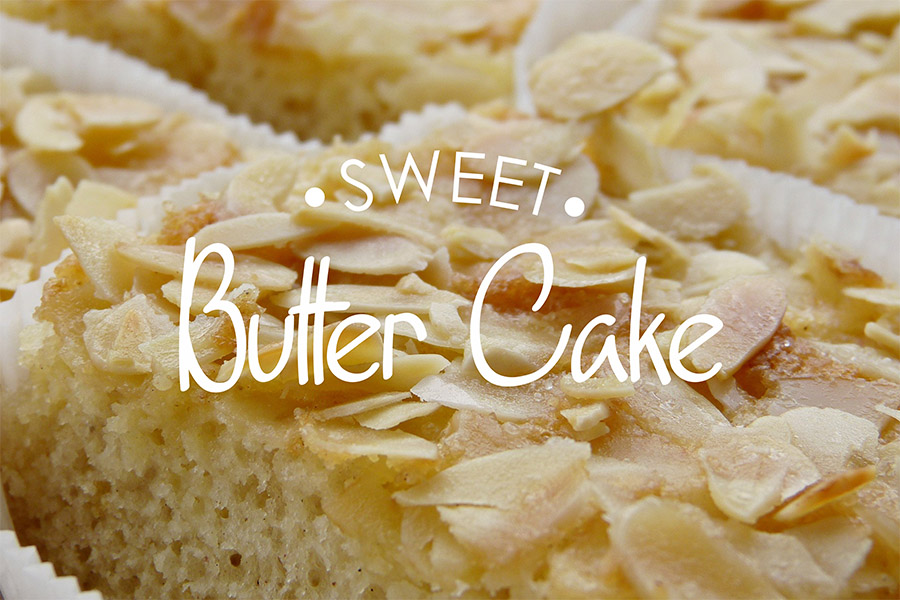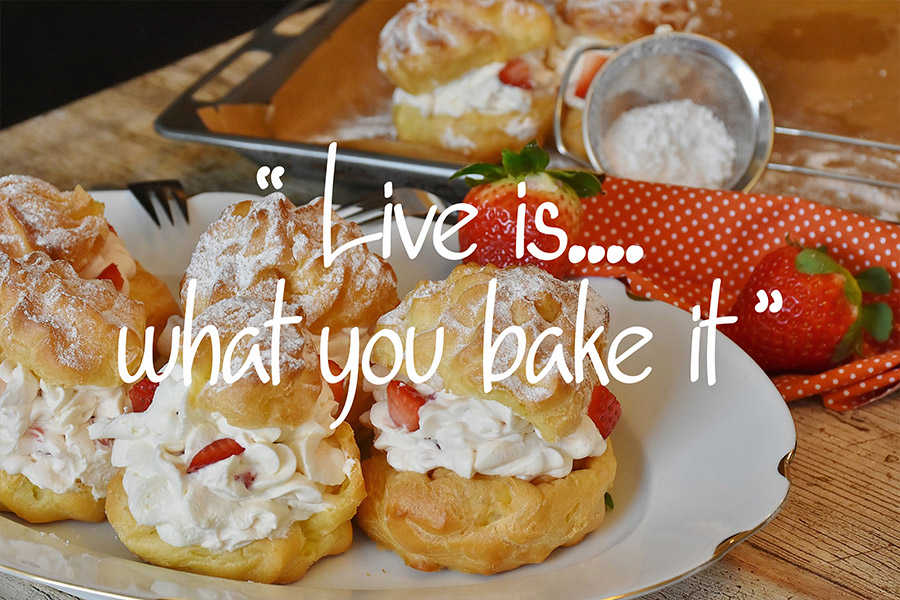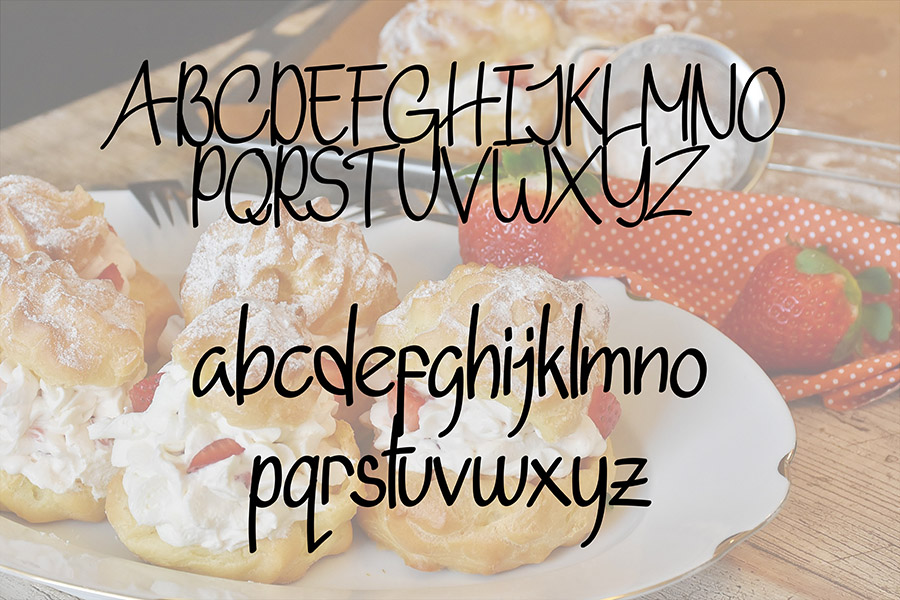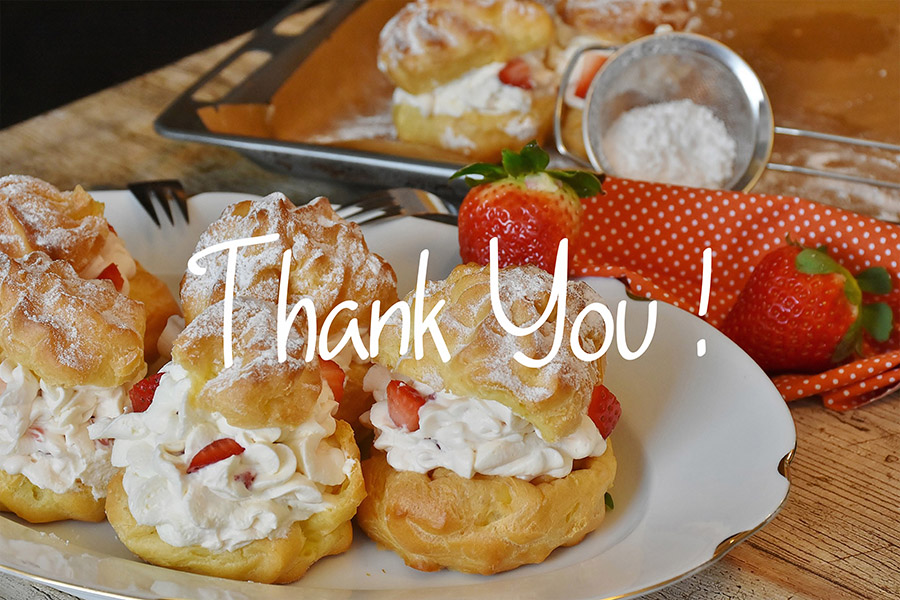
Buttermilk Script Font
It’s a simple and natural handwritten font, which can be added to a variety of friendly designs. No matter the topic, this font will be an incredibly asset to your fonts’ library, as it has the potential to elevate any creation.